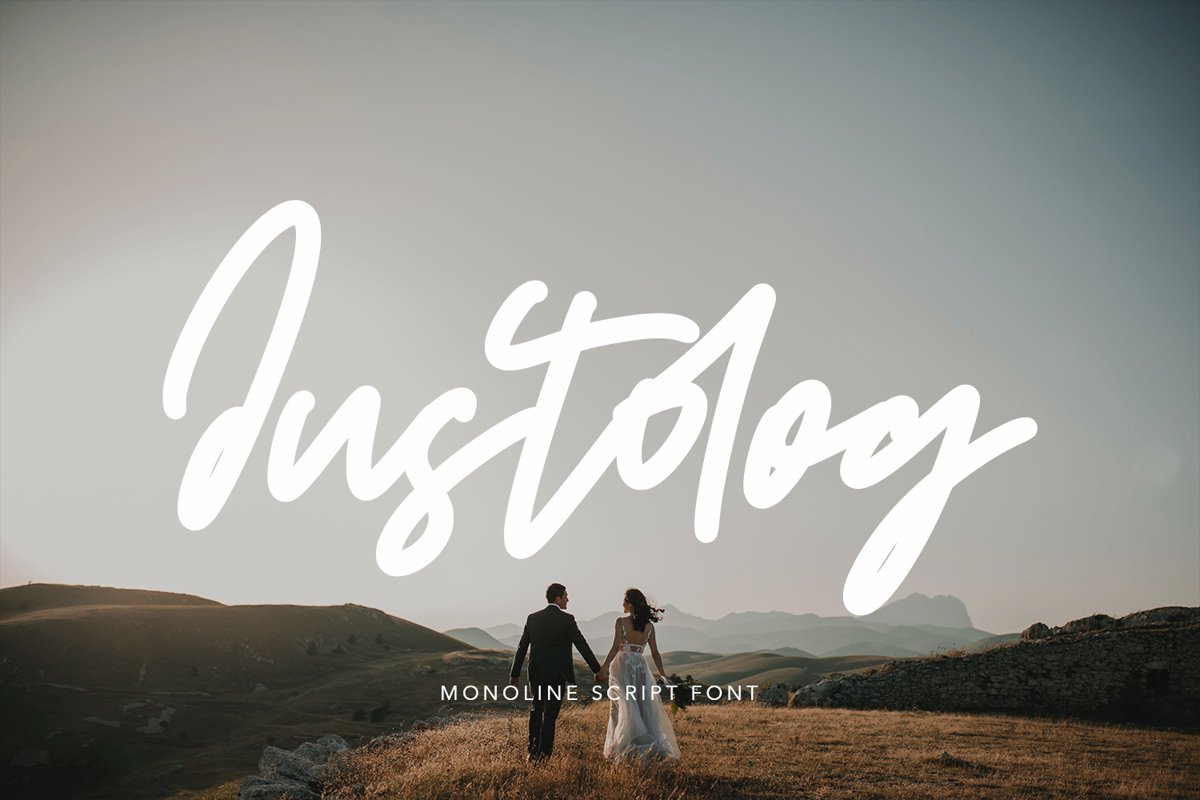
Justolog - Monoline Script Fonts that contain lowercase, uppercase, symbol, and also support multi language. There’s a lot ligatures in this font. This Font also comes with ligatures, alternates and many more. this font suitable for fashion, branding, catalog and other design what you want.